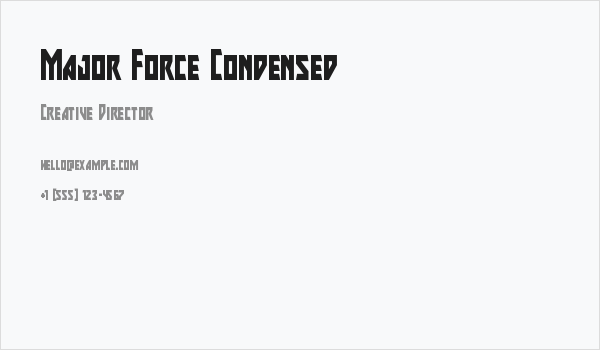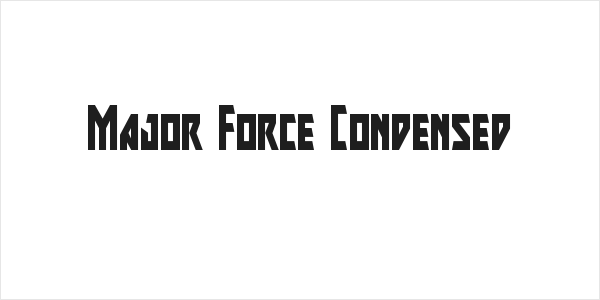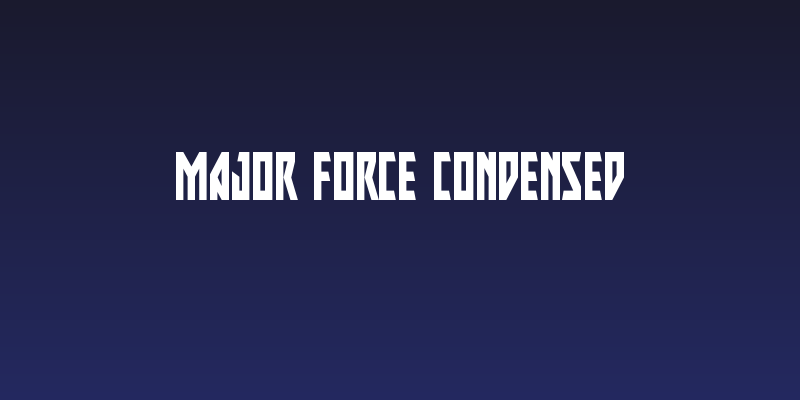
Major Force Condensed Font
Major Force Condensed Description
This font features a bold and striking design with sharp, angular edges and a condensed structure. The uppercase letters are prominent and commanding, making a strong visual impact. The geometric shapes and thick lines give it a modern and futuristic appearance. The numbers and special characters maintain the same boldness and angularity, ensuring consistency across all characters. The font's condensed width allows for efficient use of space, making it suitable for headlines and titles where impact is essential. Its unique style is both eye-catching and memorable, ideal for projects that require a strong visual identity.
| Proposed Projects | Ideal for branding, posters, video game titles, and any project needing a strong, impactful typeface. |